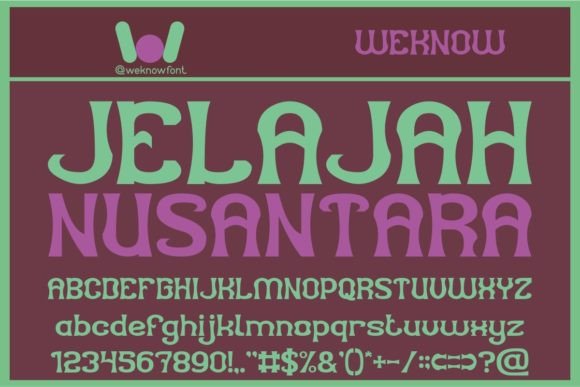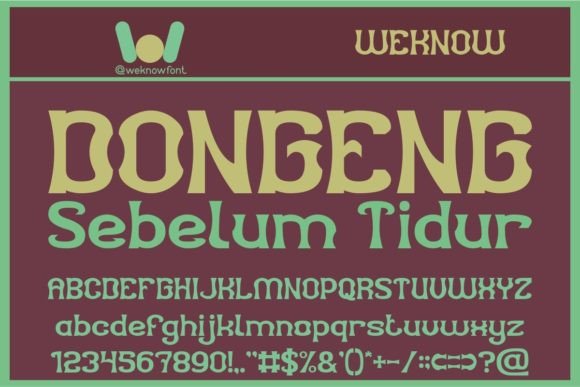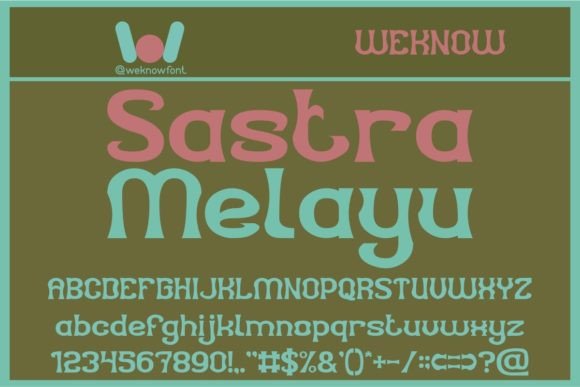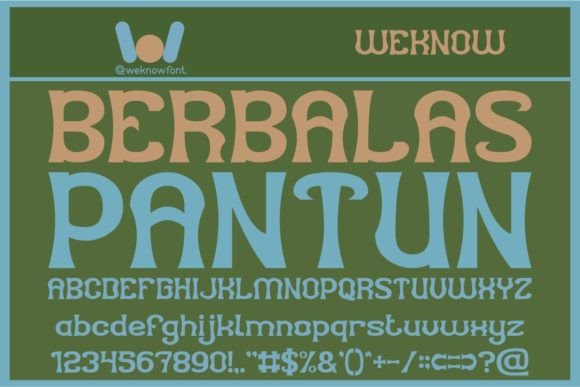
Introduction to Cerita Rakyat Font
Have you ever been stuck in the middle of a creative project, searching for the perfect font to bring your idea to life? That’s exactly what happened to many designers before they discovered the beauty of Cerita Rakyat Font. This stunning display font has become a go-to choice for those seeking a modern and eye-catching design element.
With its unique and beautiful touch, Cerita Rakyat Font is the perfect addition to any design project. Whether you’re creating a logo, branding, or quote, this high-quality font is sure to make your design stand out. And the best part? It’s available for free download, making it a valuable resource for designers of all levels.
What sets Cerita Rakyat Font apart from other design resources is its versatility and flexibility. Its transparent background makes it easy to pair with any image or background, giving you the freedom to be creative and experiment with different combinations. So why wait? Download Cerita Rakyat Font today and elevate your design projects to the next level!
Cerita Rakyat Font
- High-quality design resource ideal for creative projects, including books, magazines, and posters.
- Unique and intricate design, featuring a traditional Indonesian-inspired style.
- Transparent background, allowing for easy layering and manipulation in creative projects.
Honest Review: Cerita Rakyat Font
I recently had the chance to work with the Cerita Rakyat Font, and I must say it’s been a pleasant experience. As a designer, I’m always on the lookout for high-quality design resources that can elevate my creative projects. The Cerita Rakyat Font definitely fits the bill.
- ✨ The high-quality design is evident in every aspect of the font, from its intricate details to its clear readability.
- ✨ The font’s unique style is perfect for creative projects that require a touch of cultural flair.
- ⚠️ The font may not be suitable for all types of projects, particularly those that require a more modern or minimalist aesthetic.
- ⚠️ The font’s complexity may make it difficult to use in certain design software or applications.
Overall, I’m impressed with the Cerita Rakyat Font. It’s a great addition to any designer’s toolkit, and I would definitely recommend it to anyone looking for a unique and high-quality font for their creative projects.
Cerita Rakyat Font
Tips for Getting the Most Out of Cerita Rakyat Font
To get the most out of Cerita Rakyat Font, use it with a transparent background to create a unique and creative design. You can also use it in combination with other high-quality design resources to create a visually appealing project.
Cerita Rakyat Font is suitable for various creative projects, including:
- Typography
- Branding